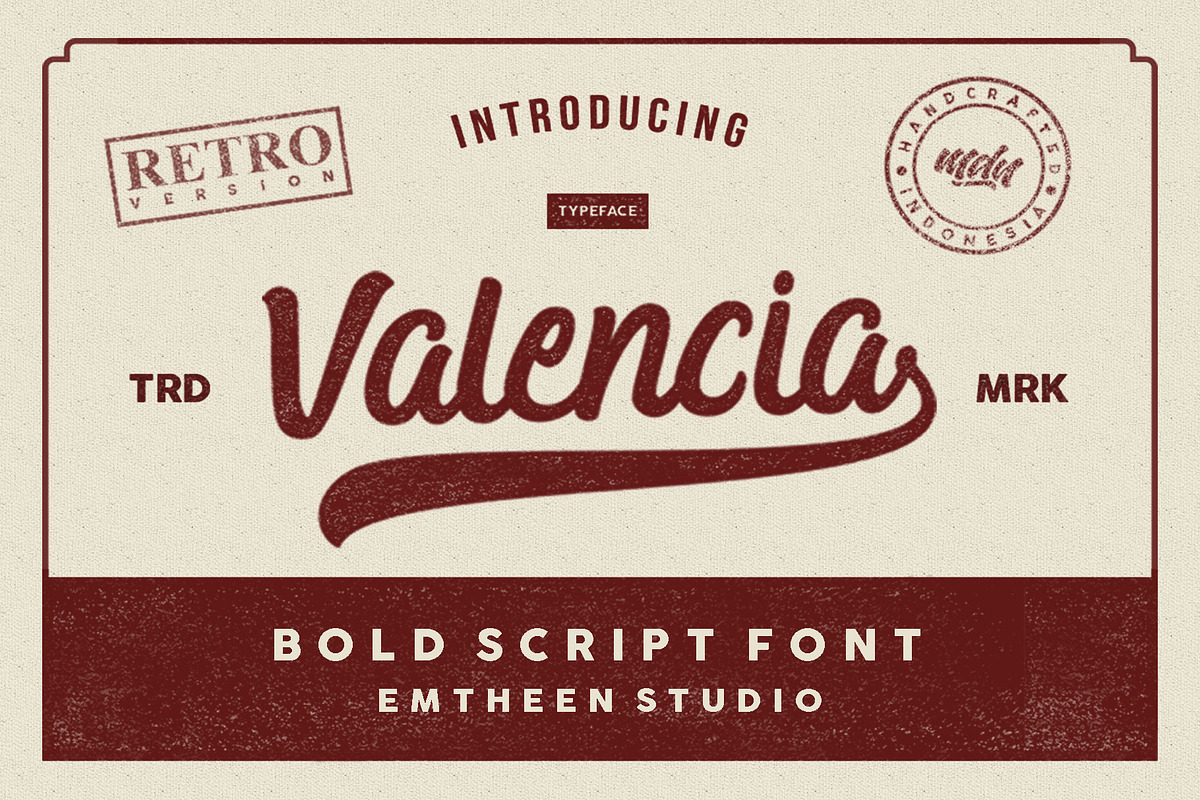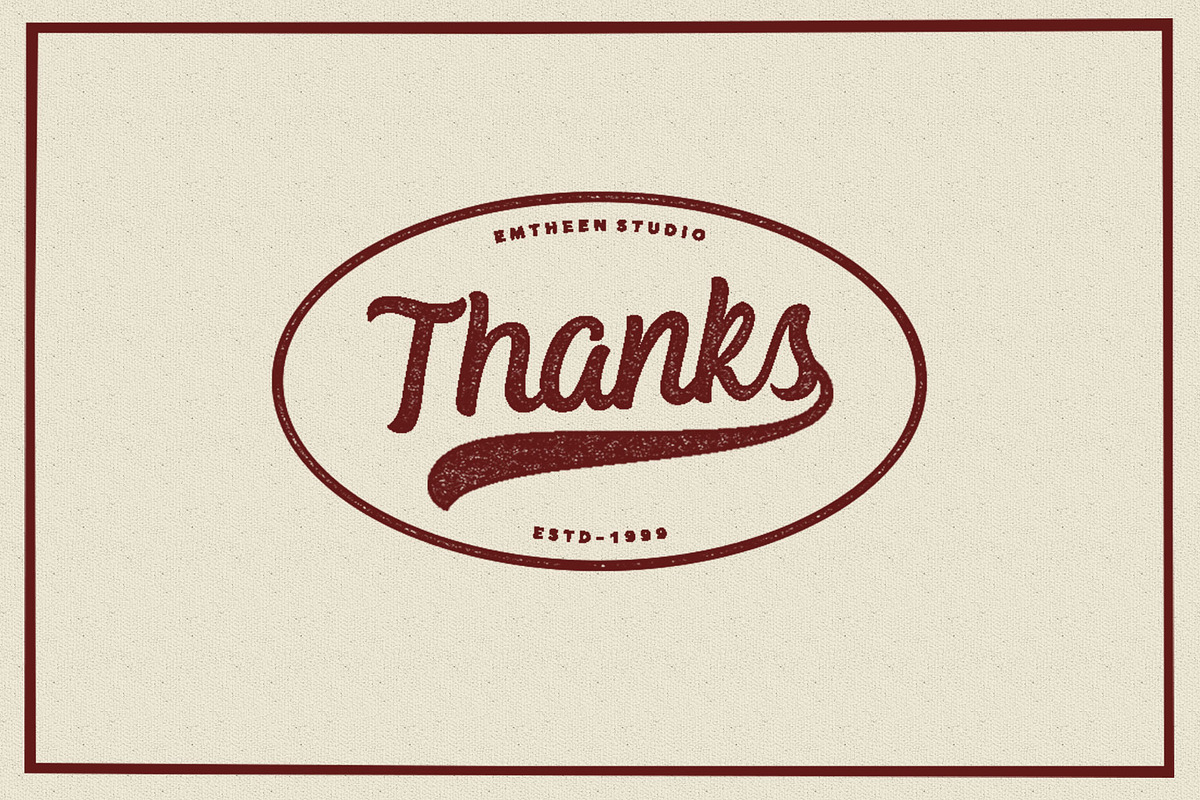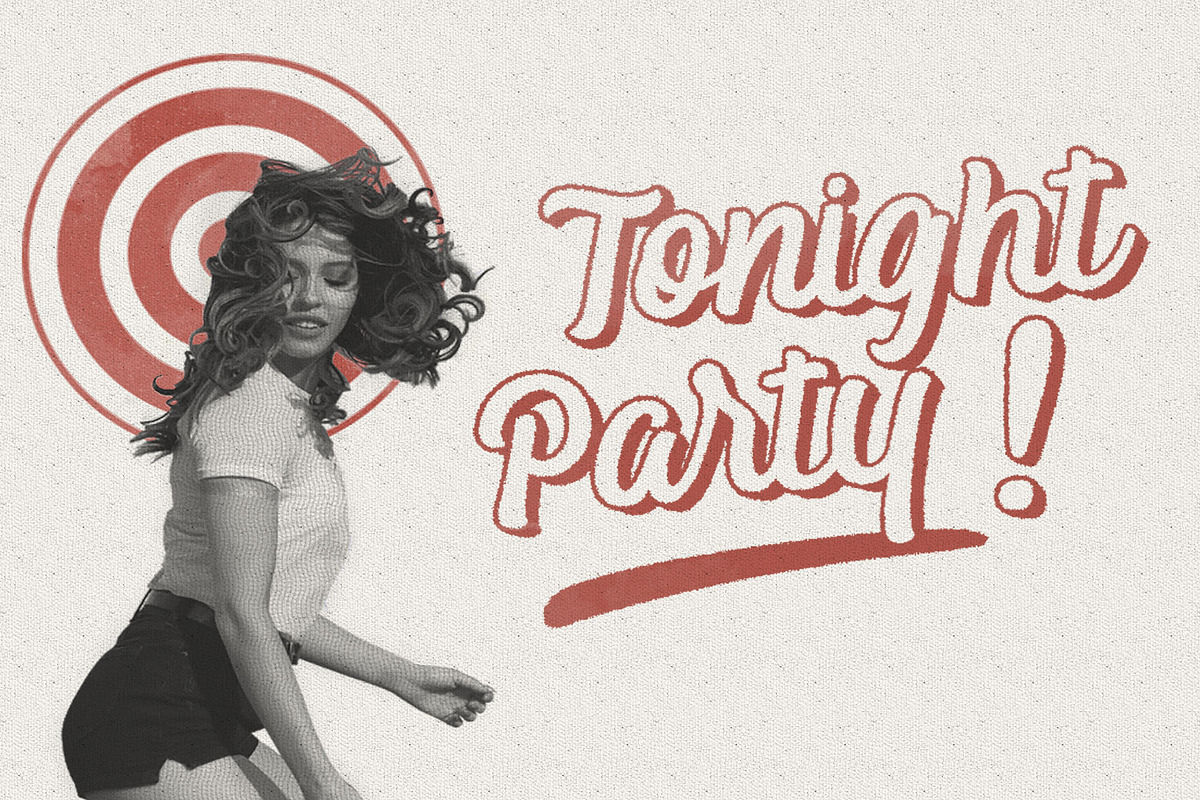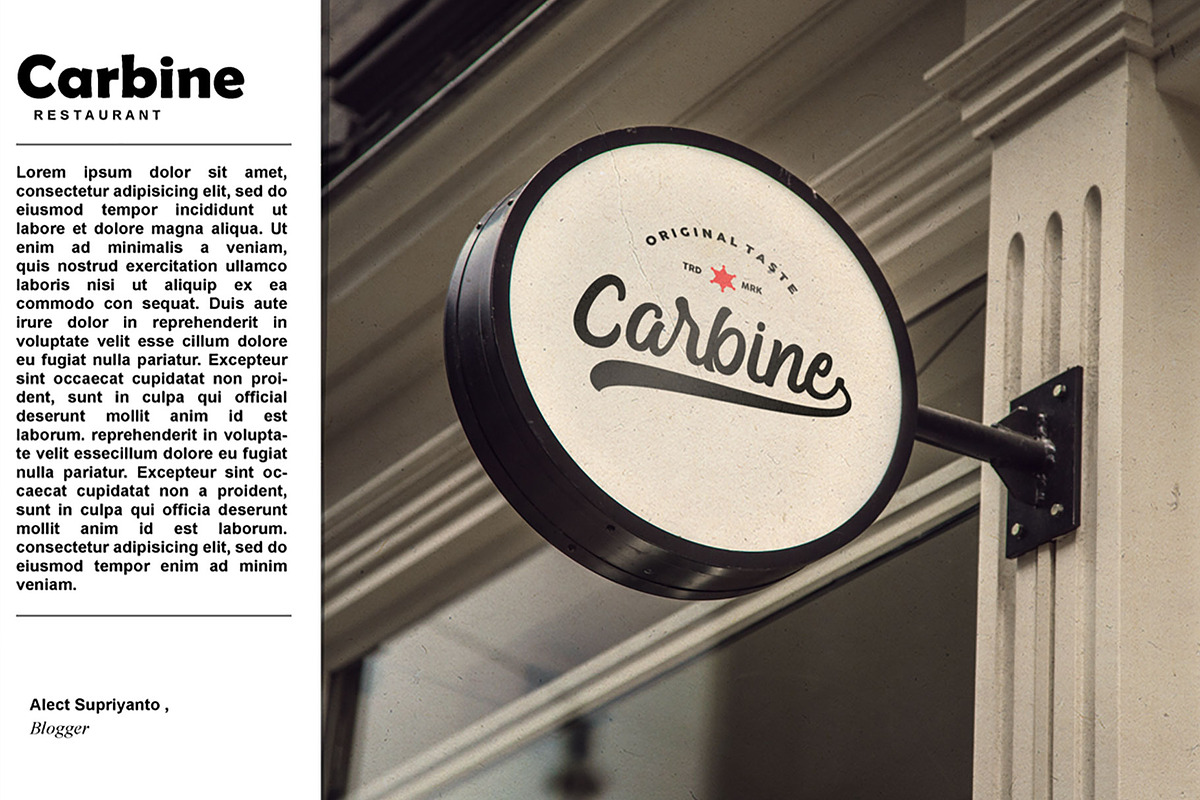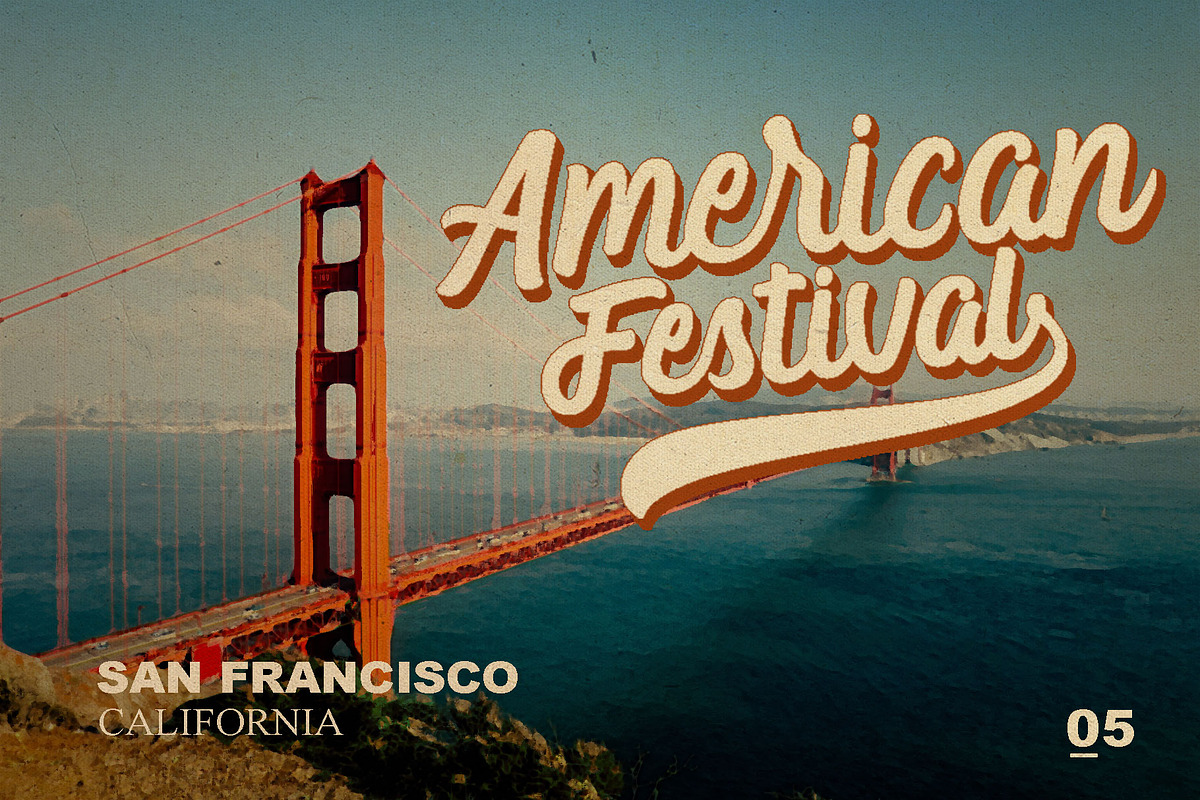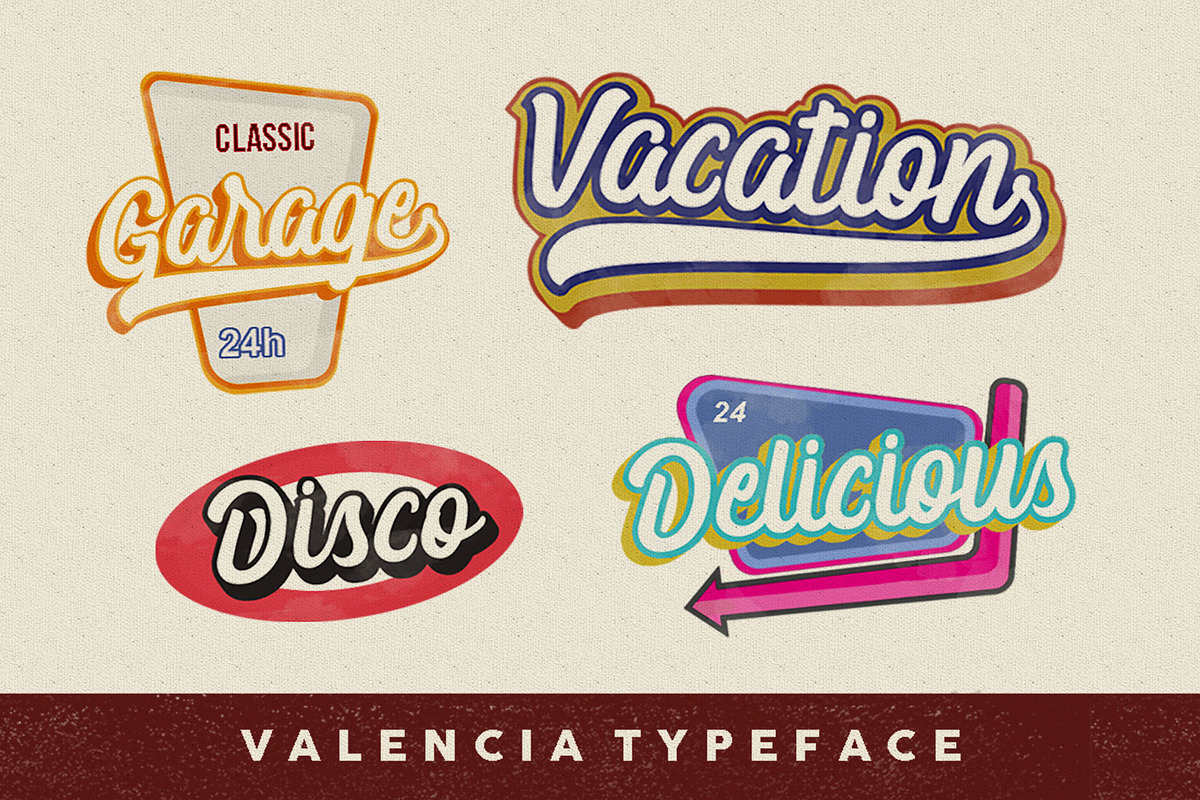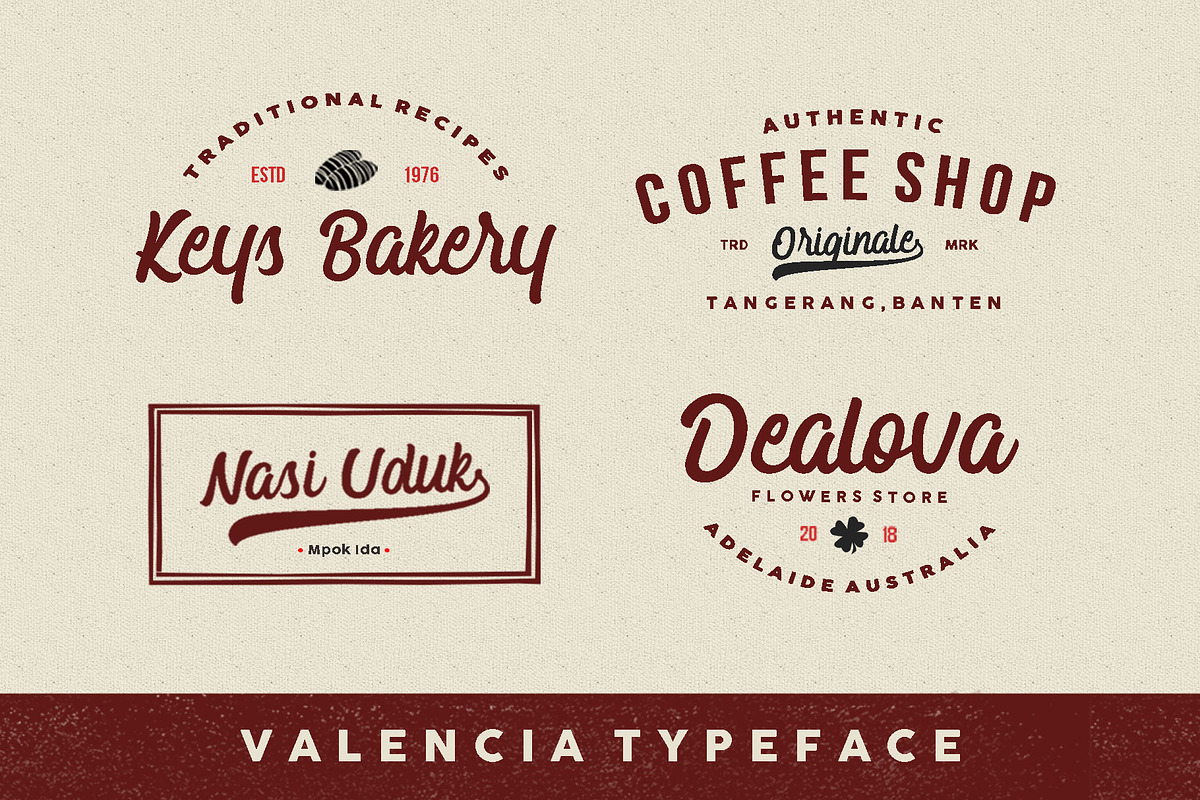
Valencia Typeface is a bold scipt type font. This font is themed vintage and retro style and of course this font is perfect for a variety of other themes such as modern, and the addition of swash will be visible more interesting. This font is perfect for use in logos, posters, typography, cover books, clothing, branding designs, product packaging, and more
Valencia Features :
- Punctuation and Number
- Multilingual Language
- Alternate Character